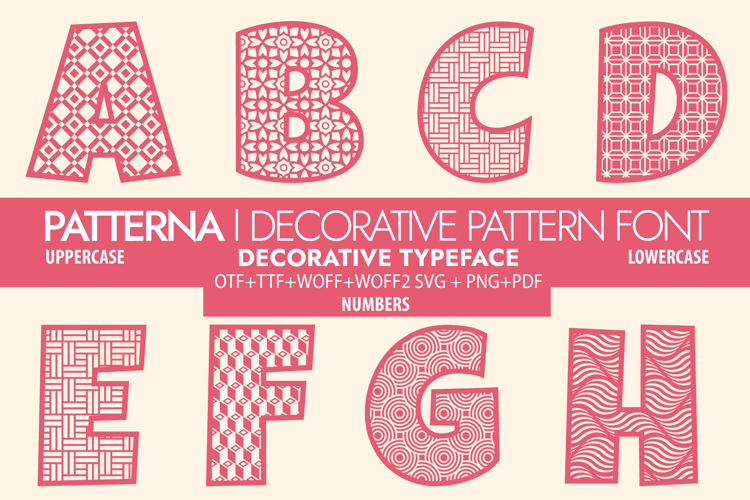
PATTERNA Font
🎨 Font Name: Patterna by Minimalist Art Studio
🎨 Font Description: Patterna is a bold decorative font filled with handcrafted patterns and multilingual support—perfect for artistic headlines, packaging, and playful branding.
✔ Complete Latin set + multilingual diacritics
✔ Alternates, stylistic sets & ligatures
✔ Numbers, small caps, and extended punctuation
✔ Bonus italics and family styles